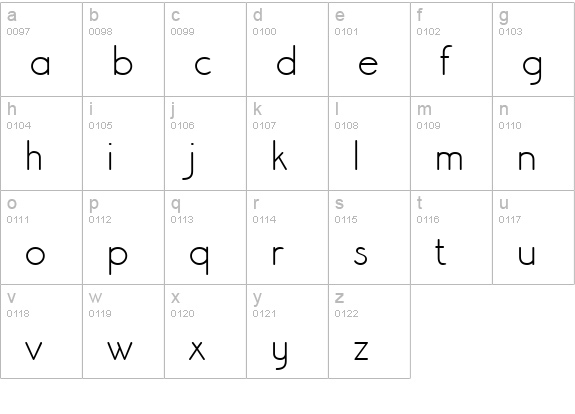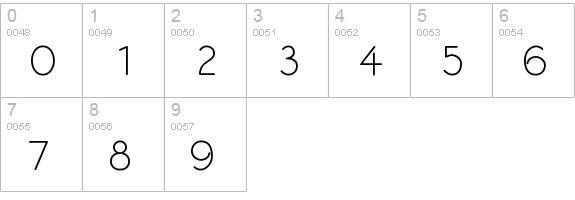
Register Sans BTN is a modern and versatile typeface that effortlessly combines elegance and functionality. With its clean lines and well-balanced proportions, this font is perfect for a wide range of design projects, including branding, logos, headlines, and body text. Designed with precision and attention to detail, Register Sans BTN offers a contemporary twist on the classic sans-serif style. Its streamlined and legible letterforms make it readable at various sizes, ensuring clarity and readability across different mediums. What sets Register Sans BTN apart is its generous selection of weights and styles, providing designers with the flexibility to create visually stunning compositions. Whether you need a bold and impactful look or a more subtle and refined appearance, this font has got you covered. But the best part? Register Sans BTN is available for free! Yes, you read that right. You can freely download this exceptional font at FontsMarket.com, where it is conveniently offered alongside a vast collection of other premium fonts. So, why wait? Enhance your design projects and unleash your creativity with Register Sans BTN today!